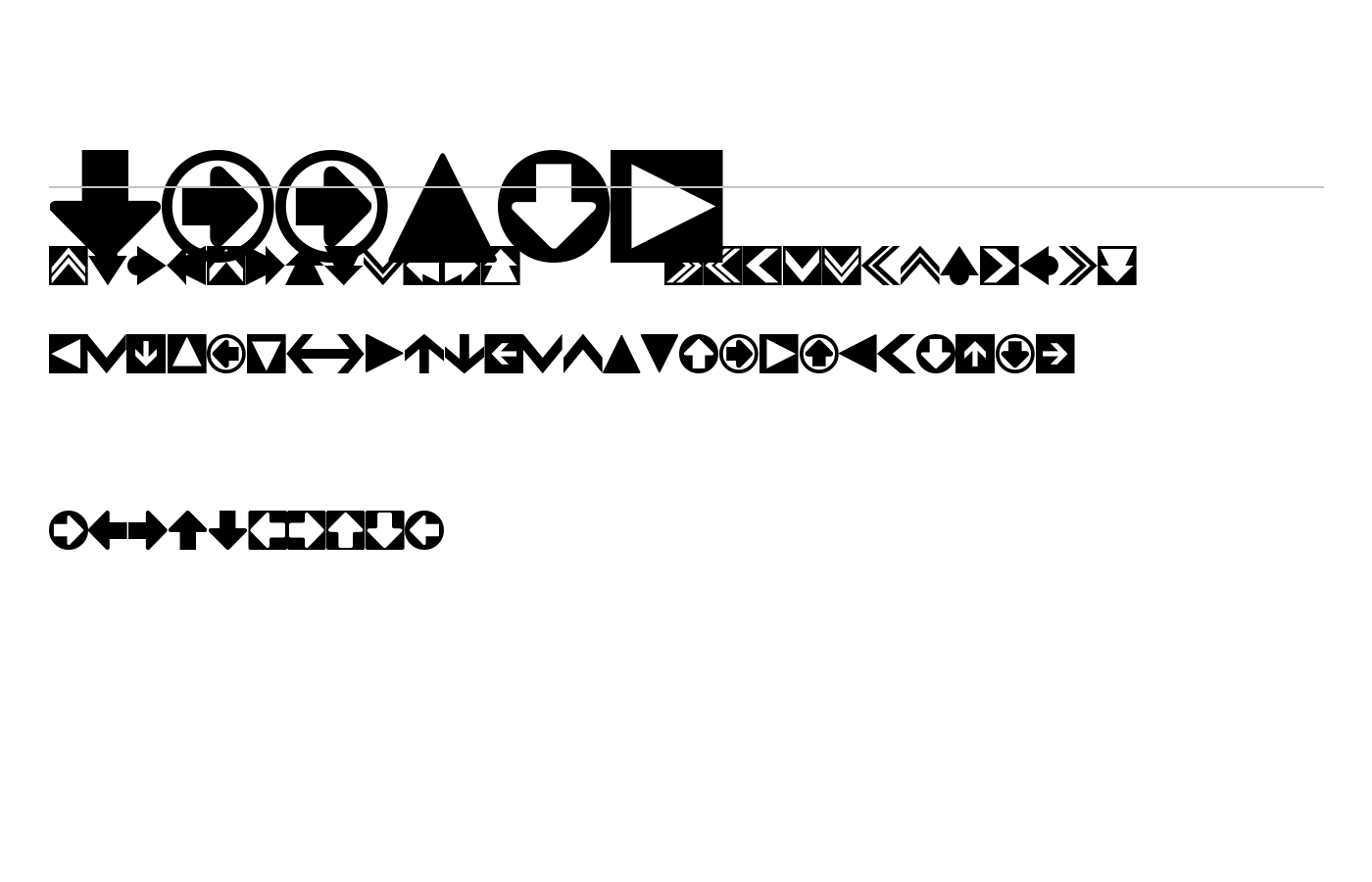
4rrows Font is a bold, geometric symbol typeface composed entirely of various arrow shapes and directions. Its heavy weight and solid forms create a striking, modern look that is highly effective for signage, infographics, and directional graphics where clear visual cues are essential. This font works best in display contexts where its unique arrow icons can attract attention and communicate movement or navigation clearly.
4rrows Font
About 4rrows Font